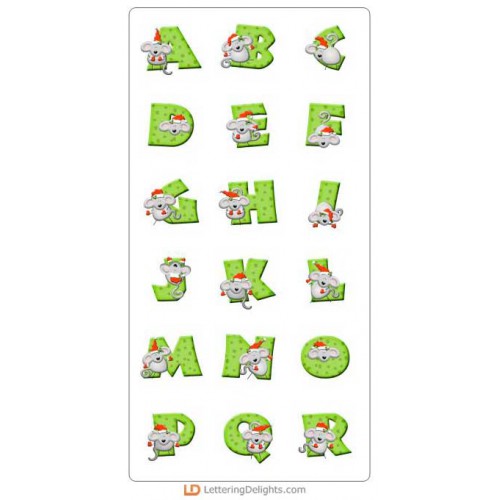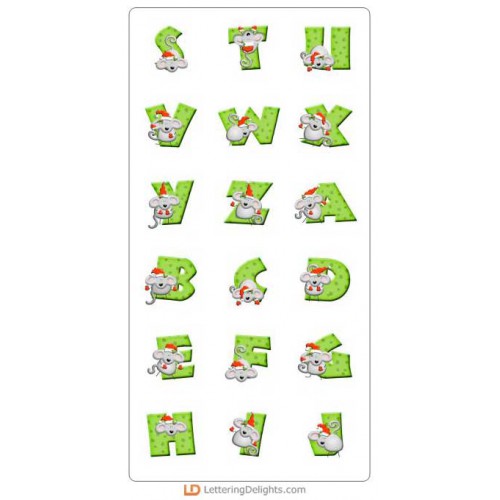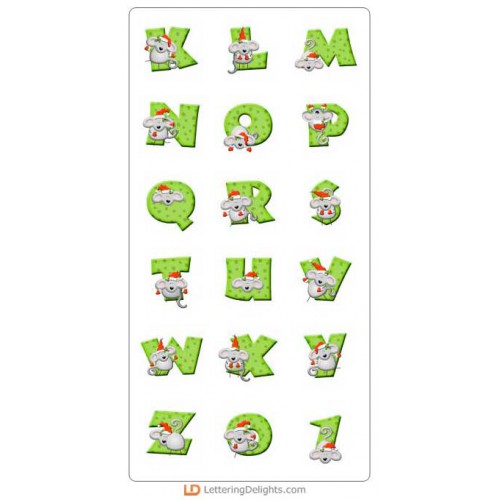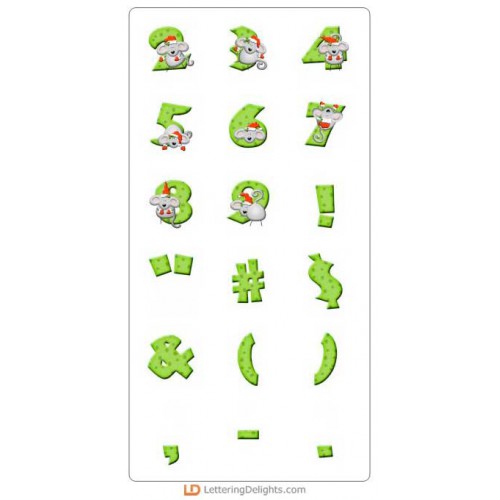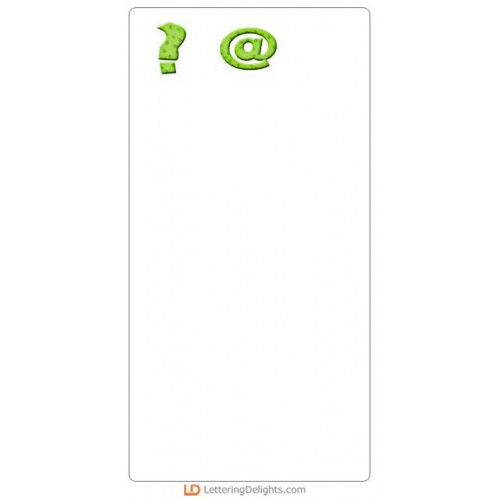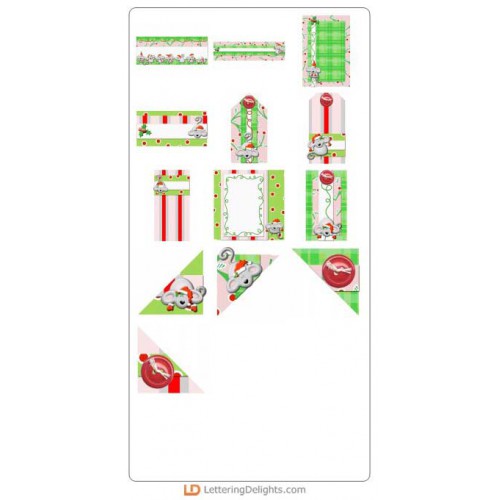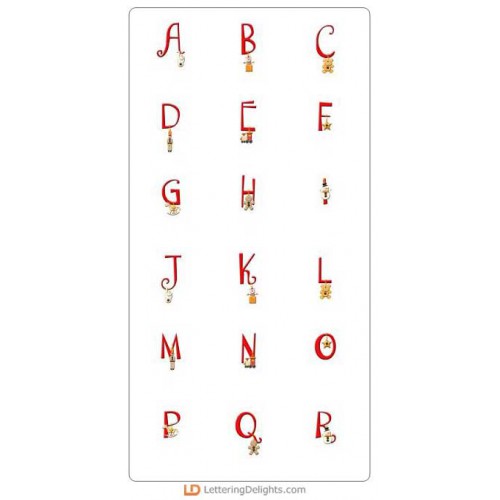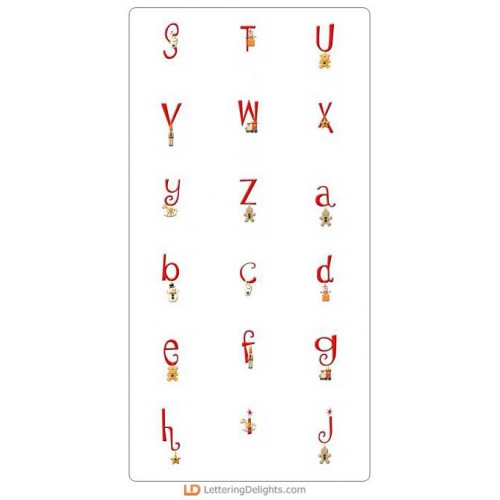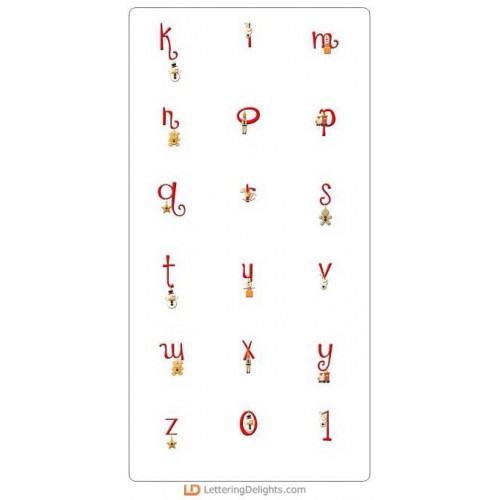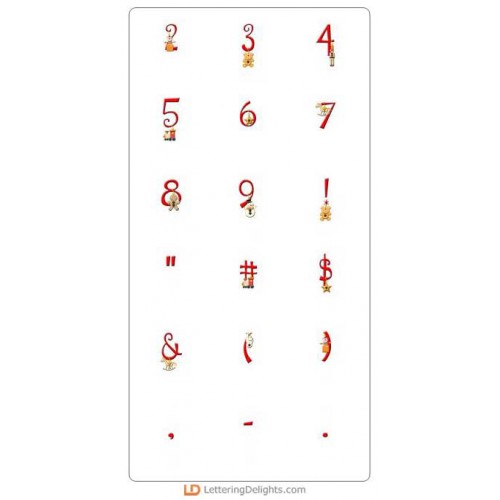
LDJ Ho! Ho! Ho! Bundle
Ornaments, Christmas mice and trees are just a few of the holiday themes you'll receive in this Ho Ho Ho bundle. Mix and match the alphabets, font, and journaling images to create loads of Christmas scrapbooking layouts, greeting cards, personalized gifts, decorations & more. Save by purchasing all these items as a bundle.